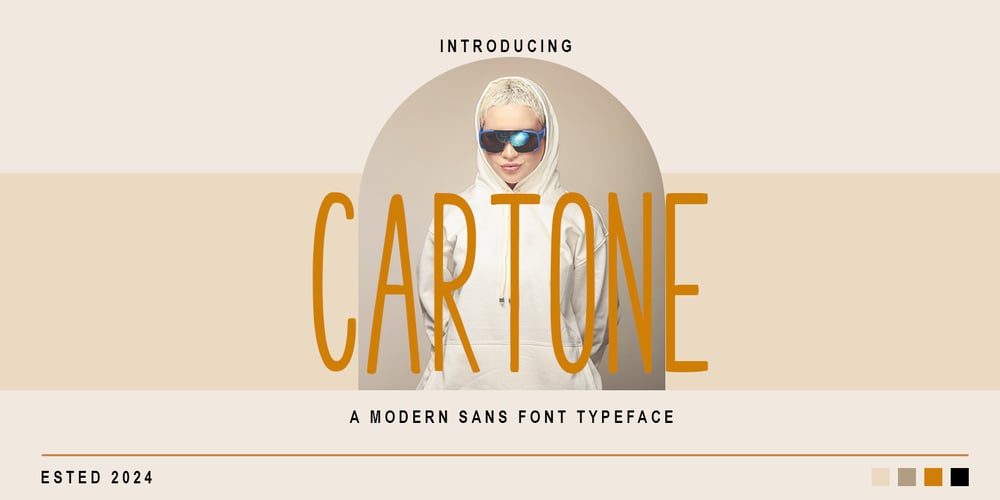
Cartone Font Family was designed by Nadia Auliana and published by Propertype. Cartone contains 1 styles and family package options. Cortone is a modern and elegant monoline display font. Designed with smooth, consistent strokes, Cartone offers a clean, minimalist look while still being eye-catching. Perfect for various design purposes such as branding, invitations, logos, and social media, this font adds a professional touch with a soft and friendly character.Each letter in Cartone is crafted with a seamless flow, emphasizing the monoline aesthetic with uniform thickness, creating a balanced and easily readable feel, making it versatile for a wide range of visual contexts, from formal to casual.